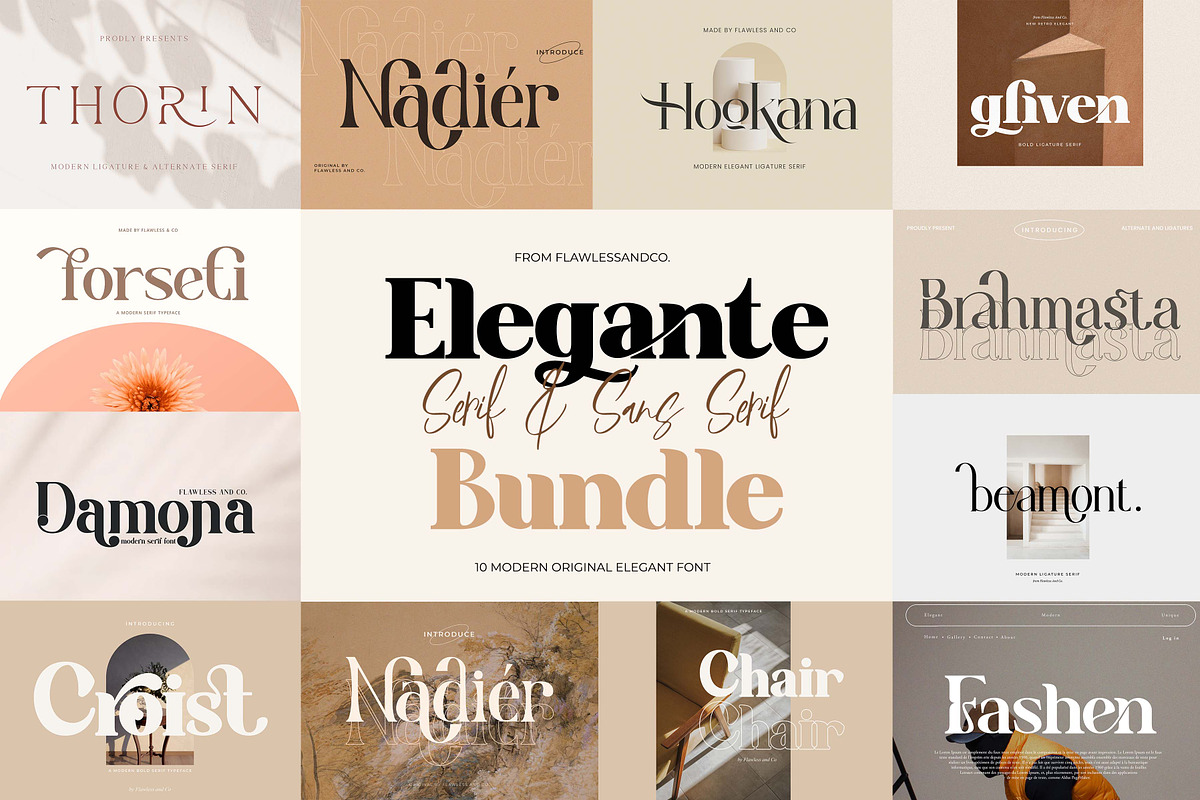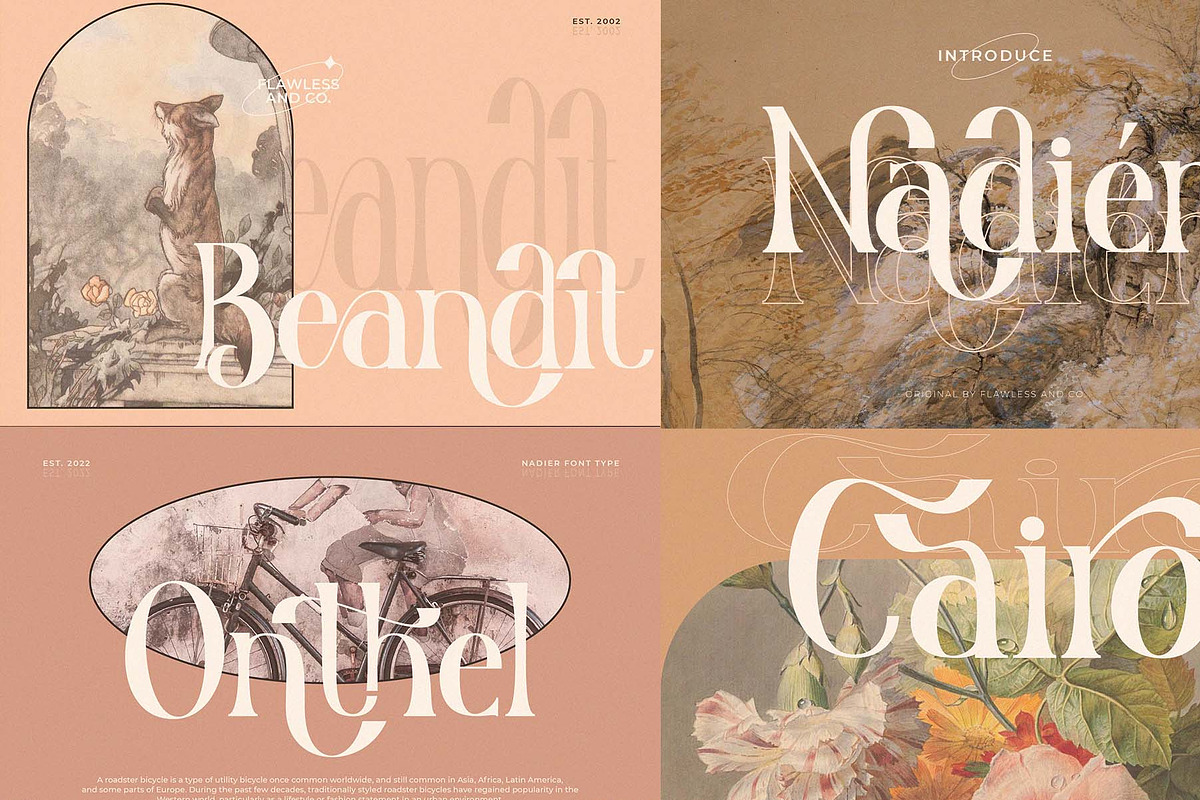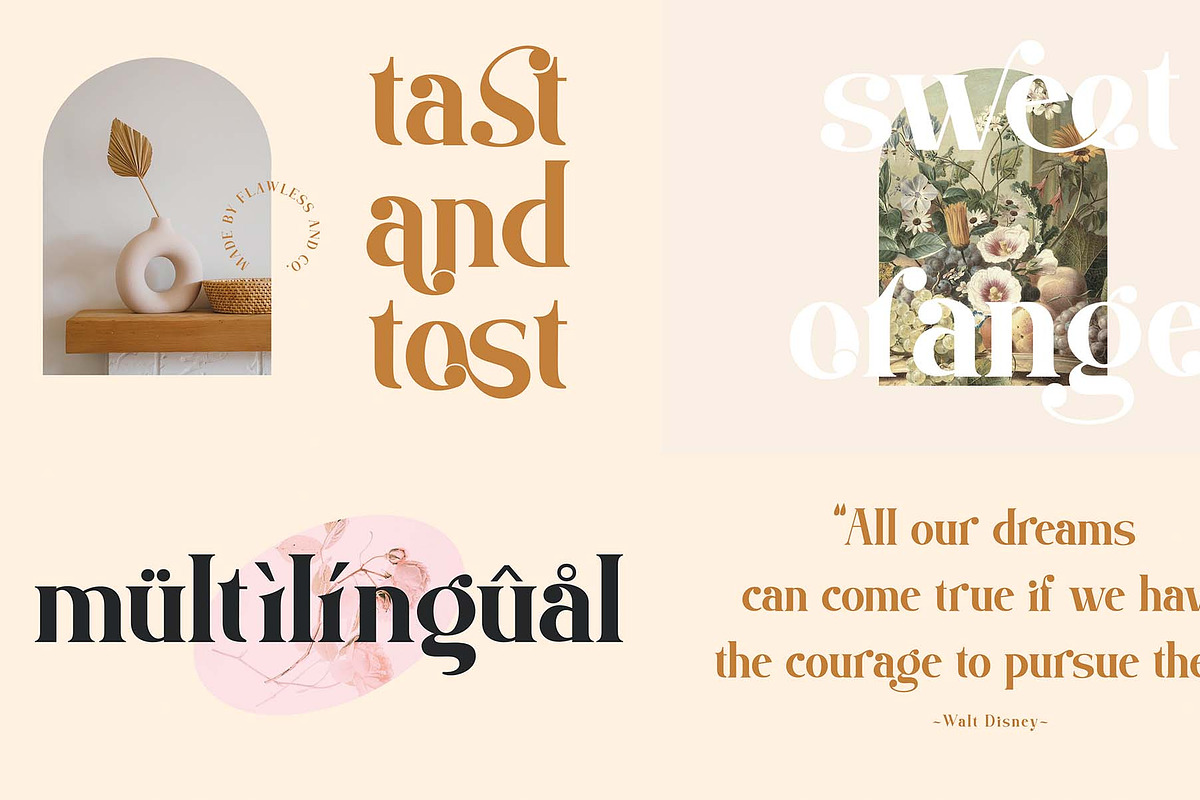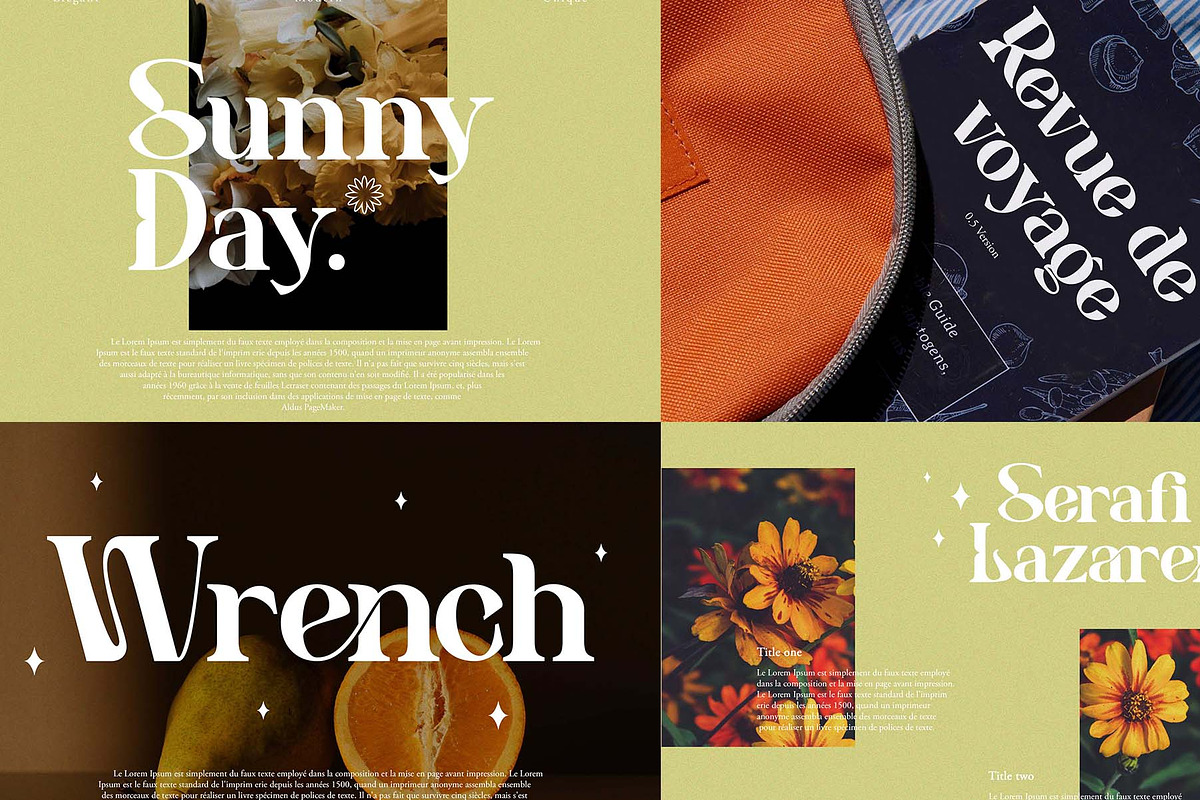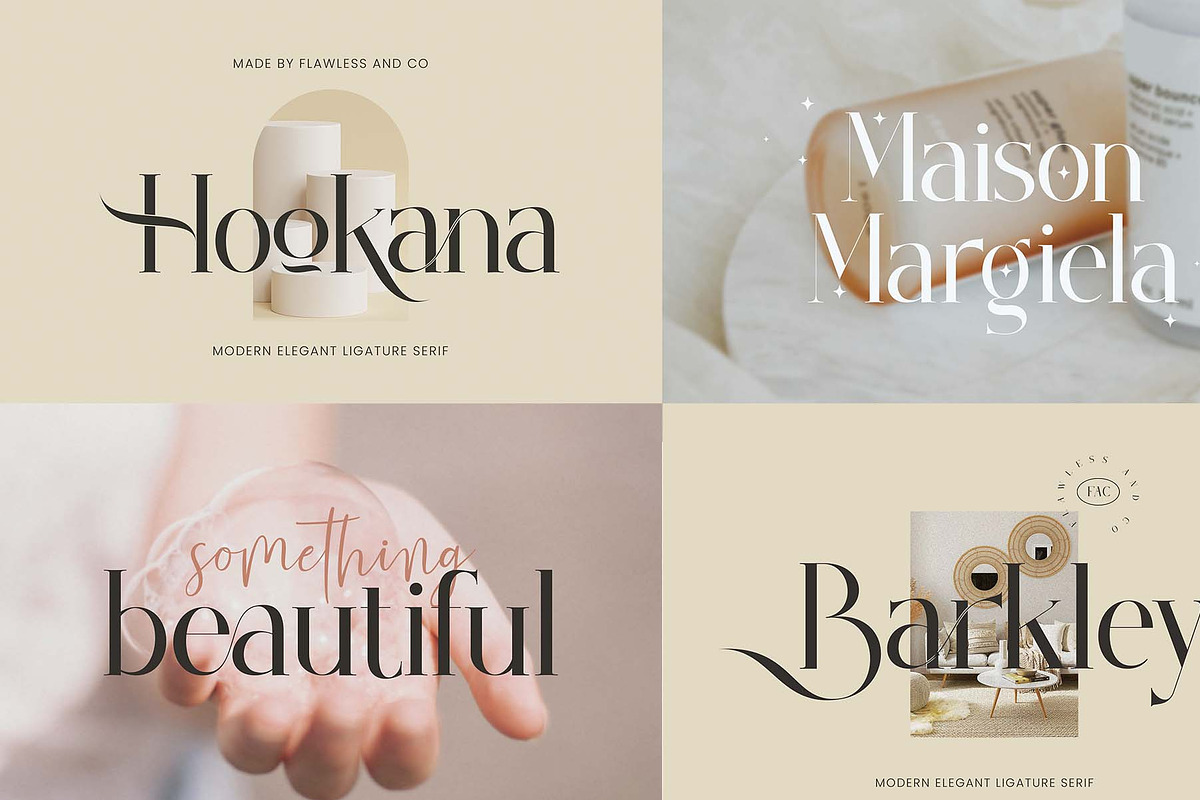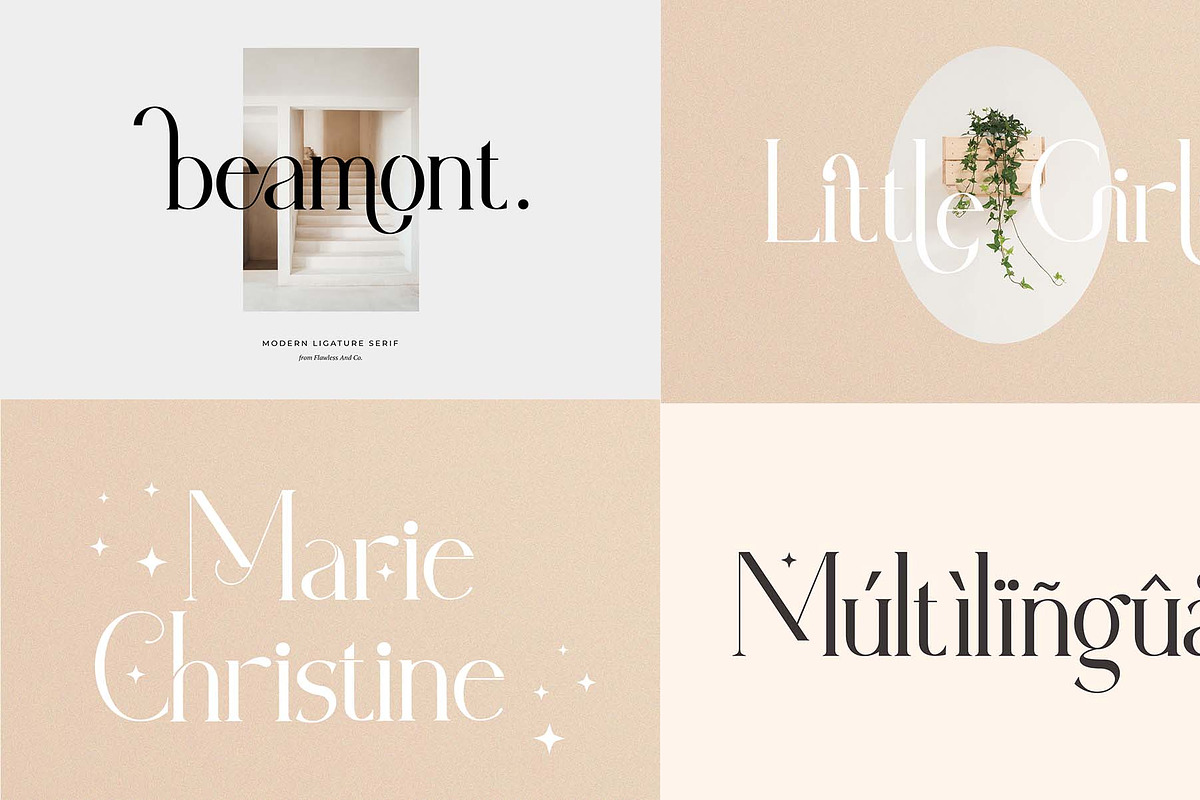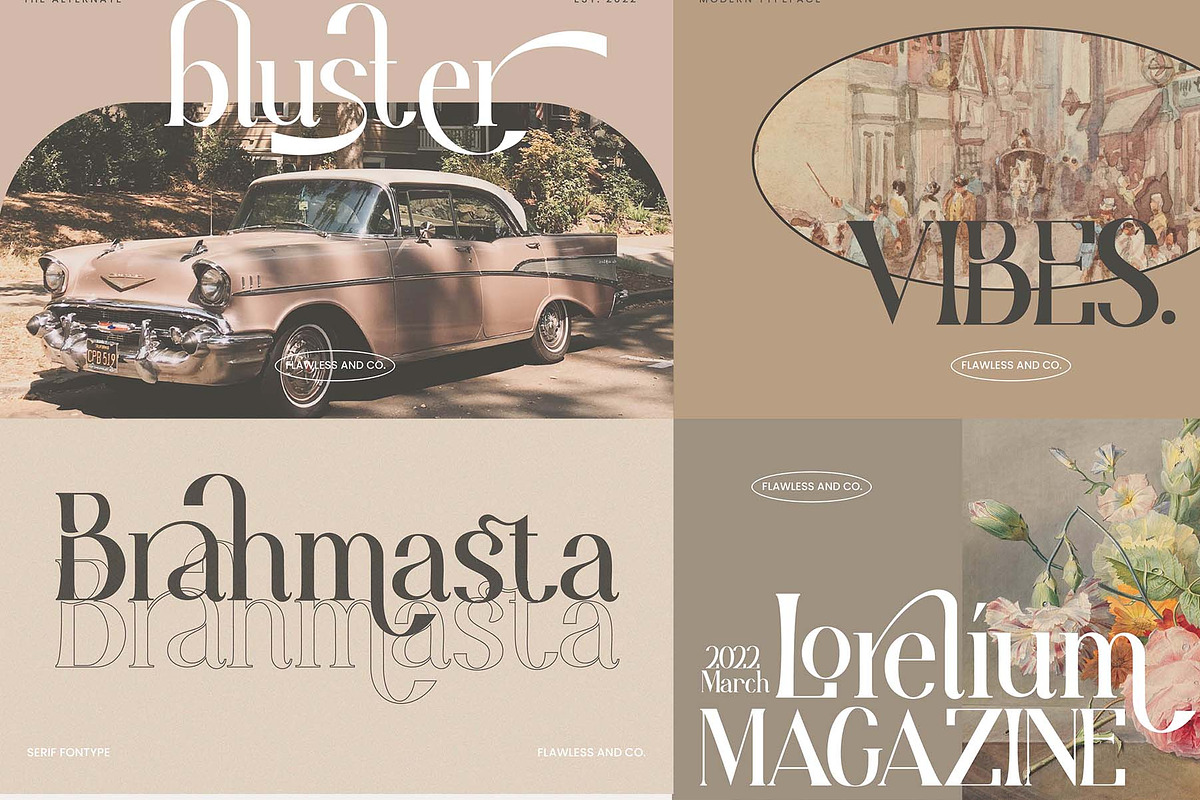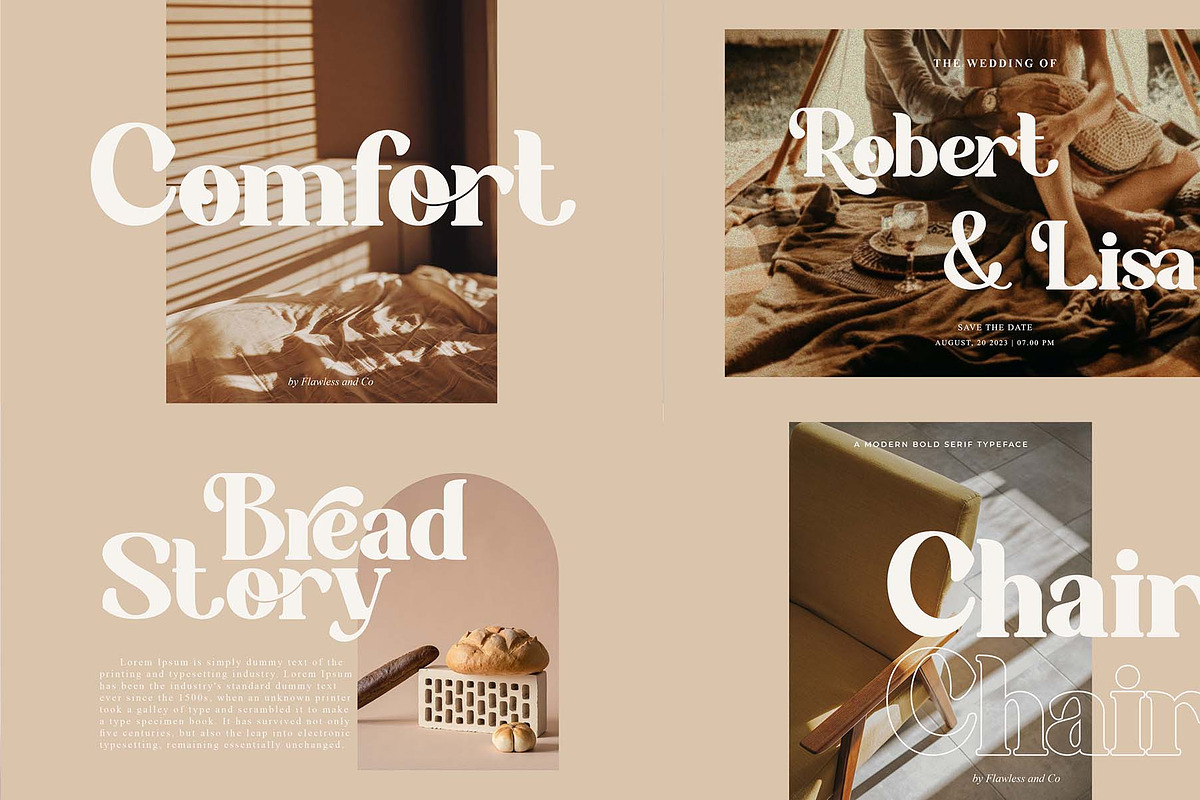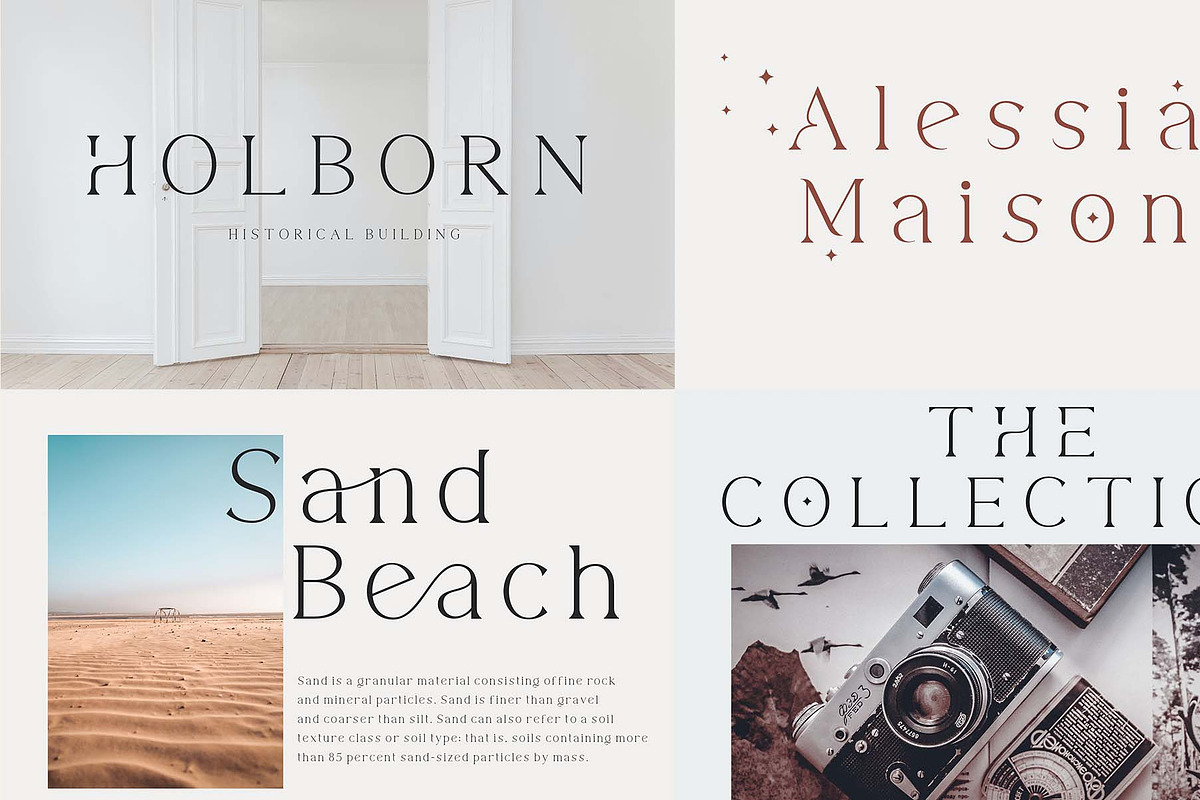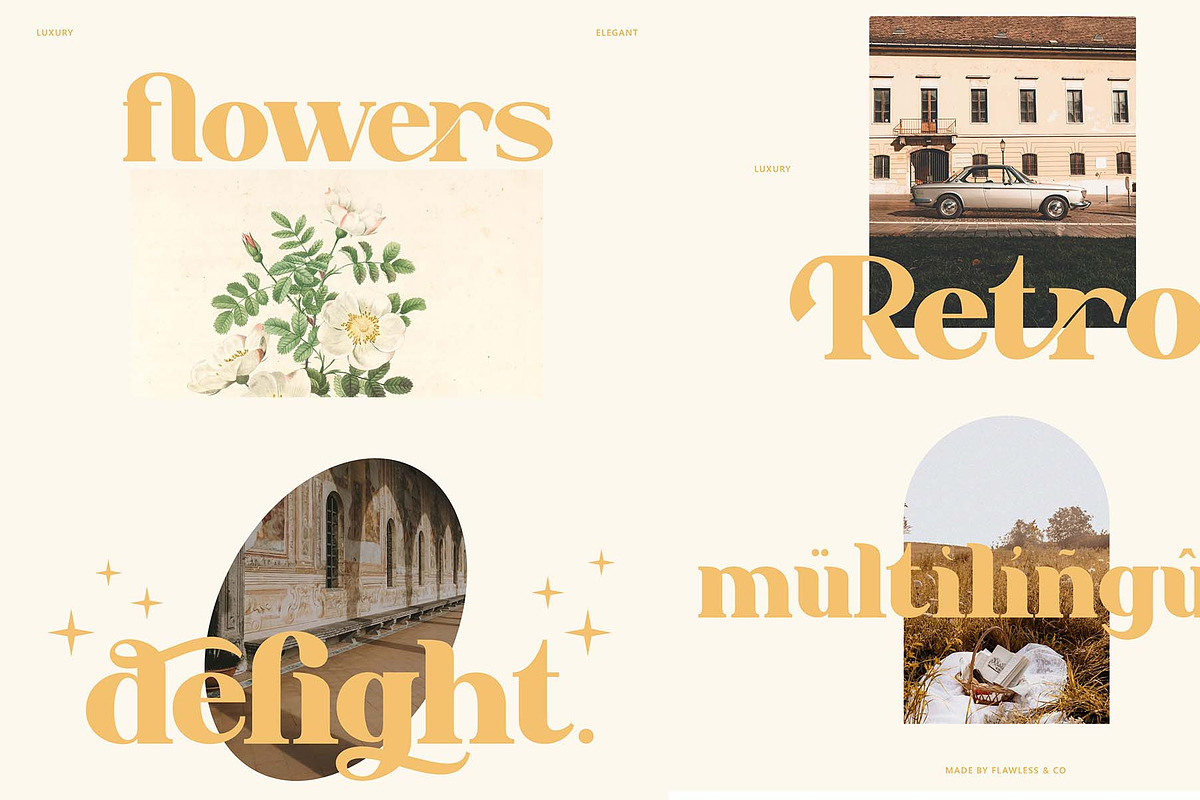
Elegante Serif & Sans Serif Bundle
Elegant Serif & Sans Serif Font Bundle
This bundle include 10 high quality script font,this style gives a feel of Girly, modern, Suitable for any graphic designs such as branding materials, t-shirt, print, business cards, logo, poster, t-shirt, photography, quotes .etc
Elegant Serif & Sans Serif Font Bundle
-- Nadier -- Brahmasta -- Thorin -- Beamint -- Forseti -- Gliven -- Damona -- Hookana -- Croist -- Benogi
Multilingual Uppercase alphabet A-Z Lowercase alphabet a-z Alternate Character Numbers 0-9 Some punctuation